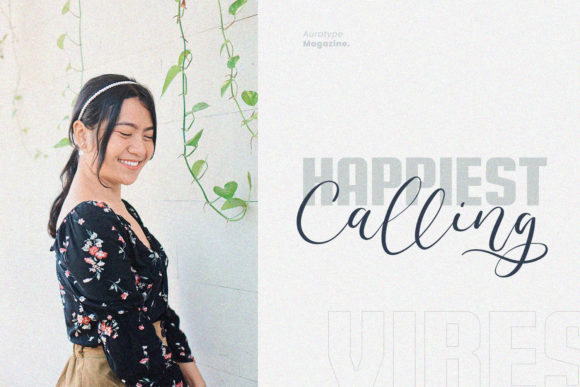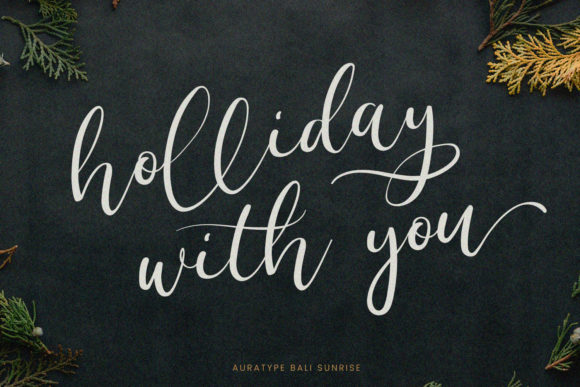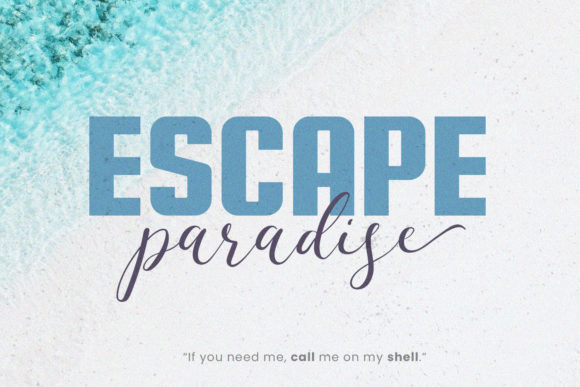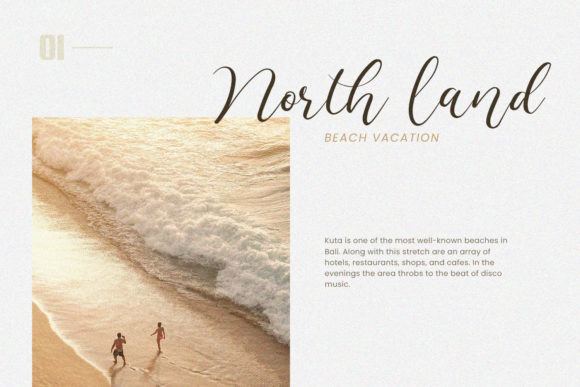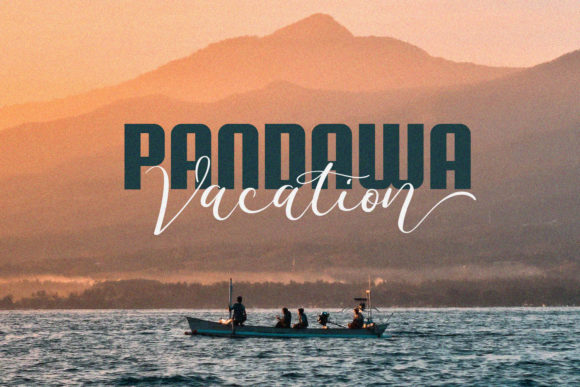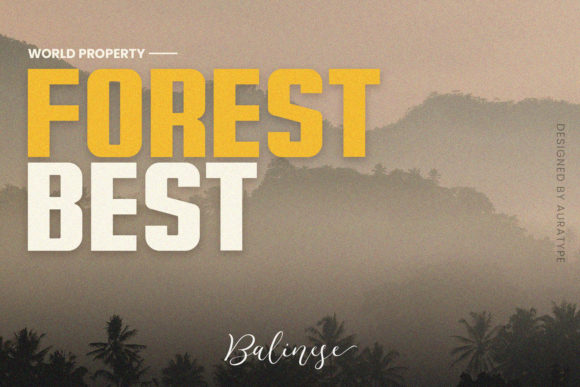
Wake Up to Creativity with the Bali Sunrise Font
Imagine you’re on a tropical island, watching the sun rise over the horizon, casting a warm glow over everything. It’s a moment of pure inspiration, and it’s exactly the kind of feeling you want to evoke in your designs. Whether you’re a seasoned designer or just starting out, finding the right font can be the key to unlocking that creative spark.
That’s where the Bali Sunrise Font comes in – a bold and beautiful duo font that combines the best of display and script styles. With its versatility and stunning aesthetic, this font is perfect for elevating your designs to new heights. Whether you’re working on a branding project, creating a social media campaign, or designing a website, the Bali Sunrise Font is sure to bring your ideas to life.
Bali Sunrise Font Key Features
- Font Family: Bali Sunrise is a unique, hand-drawn sans-serif font designed to evoke the feeling of a tropical sunrise.
- Unique Characteristics: Bali Sunrise features a distinctive, organic design with subtle imperfections and irregularities that give it a handmade feel.
Bali Sunrise Font Review
I recently had the chance to work with the Bali Sunrise Font, and I must say it’s a beautiful addition to any design project. ✨ The font’s unique, hand-painted aesthetic gives it a warm and inviting feel, perfect for travel, food, or wellness branding.
Here are some of the things that stood out to me:
- ✨ Unique, hand-painted style that adds a personal touch to designs
- ✨ Perfect for creating a warm and inviting atmosphere in branding and advertising
- ✨ Great for use in headings and titles to grab attention
- ⚠️ May not be suitable for projects that require a more formal or corporate tone
- ⚠️ Some characters may not be as polished as others, which can be distracting
- ⚠️ Limited font weight options may limit its use in certain design situations
Overall, I think the Bali Sunrise Font is a great choice for designers looking to add some personality to their projects. While it may have some limitations, its unique style and warm feel make it a standout choice for the right projects.
Some tips to get the most out of the Bali Sunrise Font include:
- Using it for travel or adventure-themed designs.
- Pairing it with bright and colorful backgrounds.
- Using it for headings and titles to add a touch of elegance.